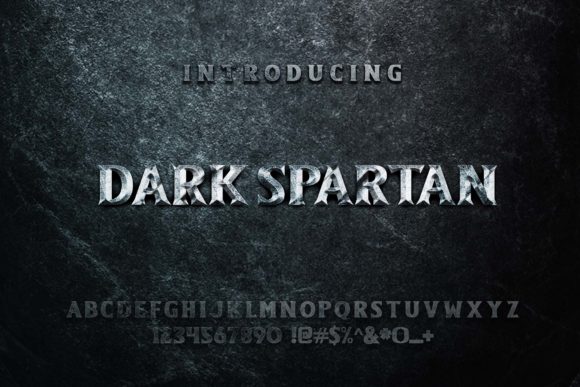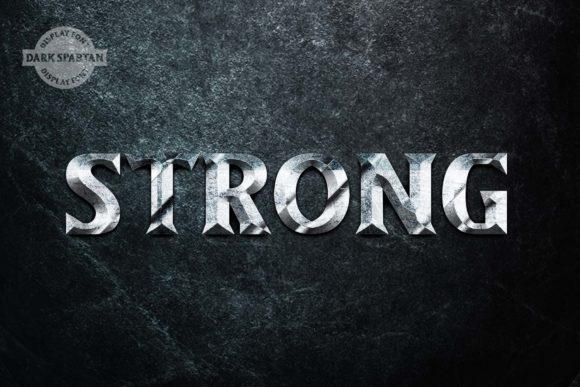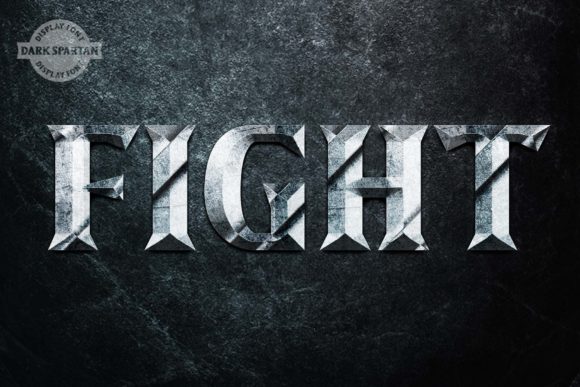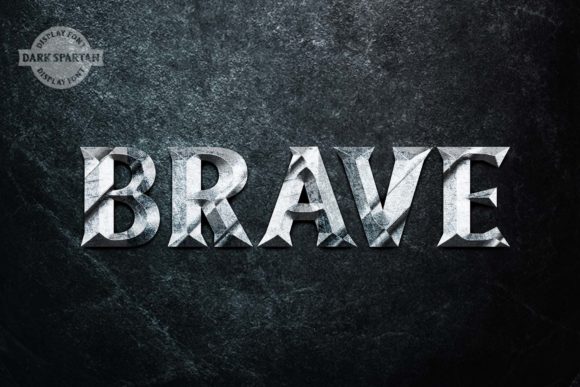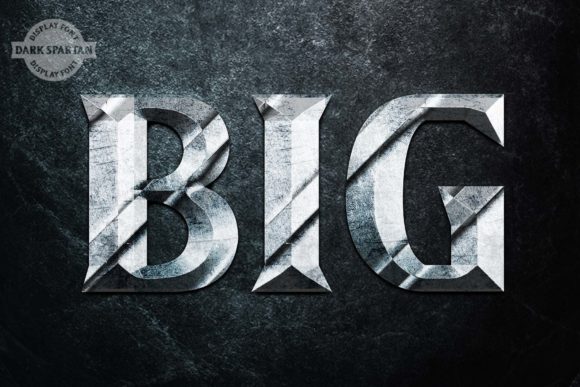
Unleash Your Creativity with Dark Spartan Font
Are you tired of using the same old fonts for your designs? Look no further! Dark Spartan is a strong, eye-catching, awesome, and powerful display font that’s sure to take your creative projects to the next level. In this article, we’ll dive into the world of Dark Spartan Font, exploring its features, benefits, and uses, as well as provide tips and inspiration for designers and crafters.
What is Dark Spartan Font?
Dark Spartan is a bold, modern display font that’s designed to make a statement. With its strong, rugged, and powerful aesthetic, it’s perfect for creating eye-catching headlines, titles, and graphics. The font features a unique, distressed look that gives it a rough, edgy feel, making it ideal for designs that require a bold and fearless attitude.
Key Features of Dark Spartan Font
- Strong and Eye-Catching: Dark Spartan is designed to grab attention and make a lasting impression. Its bold, rugged aesthetic ensures that your text stands out from the crowd.
- Awe-Inspiring: The font’s unique, distressed look gives it an awe-inspiring quality that’s perfect for creating dramatic and impactful designs.
- Powerful: Dark Spartan exudes confidence and strength, making it an excellent choice for designs that require a bold and fearless attitude.
- Versatile: The font is suitable for a wide range of design projects, from posters and flyers to logos and branding materials.
Benefits of Using Dark Spartan Font
So, why choose Dark Spartan Font for your design projects? Here are just a few benefits:
- Adds Impact: Dark Spartan’s bold, eye-catching aesthetic ensures that your designs make a lasting impression.
- Increases Engagement: The font’s unique, distressed look can help grab attention and increase engagement with your audience.
- Enhances Branding: Dark Spartan can help create a strong, memorable brand identity that’s sure to stand out from the competition.
Uses of Dark Spartan Font
Dark Spartan Font is versatile and can be used for a wide range of design projects, including:
- Posters and Flyers: Create eye-catching posters and flyers that grab attention and make a lasting impression.
- Logos and Branding: Use Dark Spartan to create a strong, memorable brand identity that’s sure to stand out.
- Social Media Graphics: Add impact to your social media graphics with Dark Spartan’s bold, eye-catching aesthetic.
- Packaging Design: Use the font to create bold, attention-grabbing packaging designs that stand out on store shelves.
Tips for Using Dark Spartan Font
Here are a few tips for getting the most out of Dark Spartan Font:
- Use it Sparingly: Dark Spartan is a bold font, so use it sparingly to avoid overwhelming your design.
- Experiment with Colors: Try pairing Dark Spartan with different colors to create unique and eye-catching effects.
- Mix with Other Fonts: Combine Dark Spartan with other fonts to create visually interesting and dynamic designs.
Inspiration and Examples
Need inspiration for your design projects? Here are a few examples of how Dark Spartan Font can be used:
- Rock Music Poster: Use Dark Spartan to create a bold, eye-catching poster for a rock music concert.
- Branding for a Fitness Brand: Use the font to create a strong, memorable brand identity for a fitness brand.
- Social Media Graphic: Add impact to your social media graphics with Dark Spartan’s bold, eye-catching aesthetic.
Dark Spartan Font is a powerful, eye-catching, and awesome display font that’s perfect for designers and crafters looking to add impact to their creative projects. With its strong, rugged aesthetic and versatile uses, it’s an excellent choice for a wide range of design projects. So why wait? Download Dark Spartan Font today and unleash your creativity!